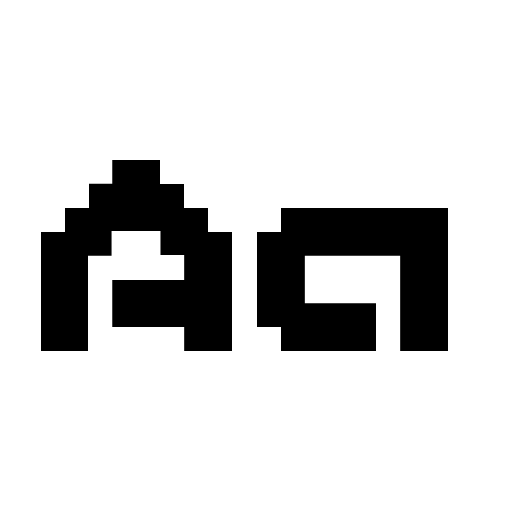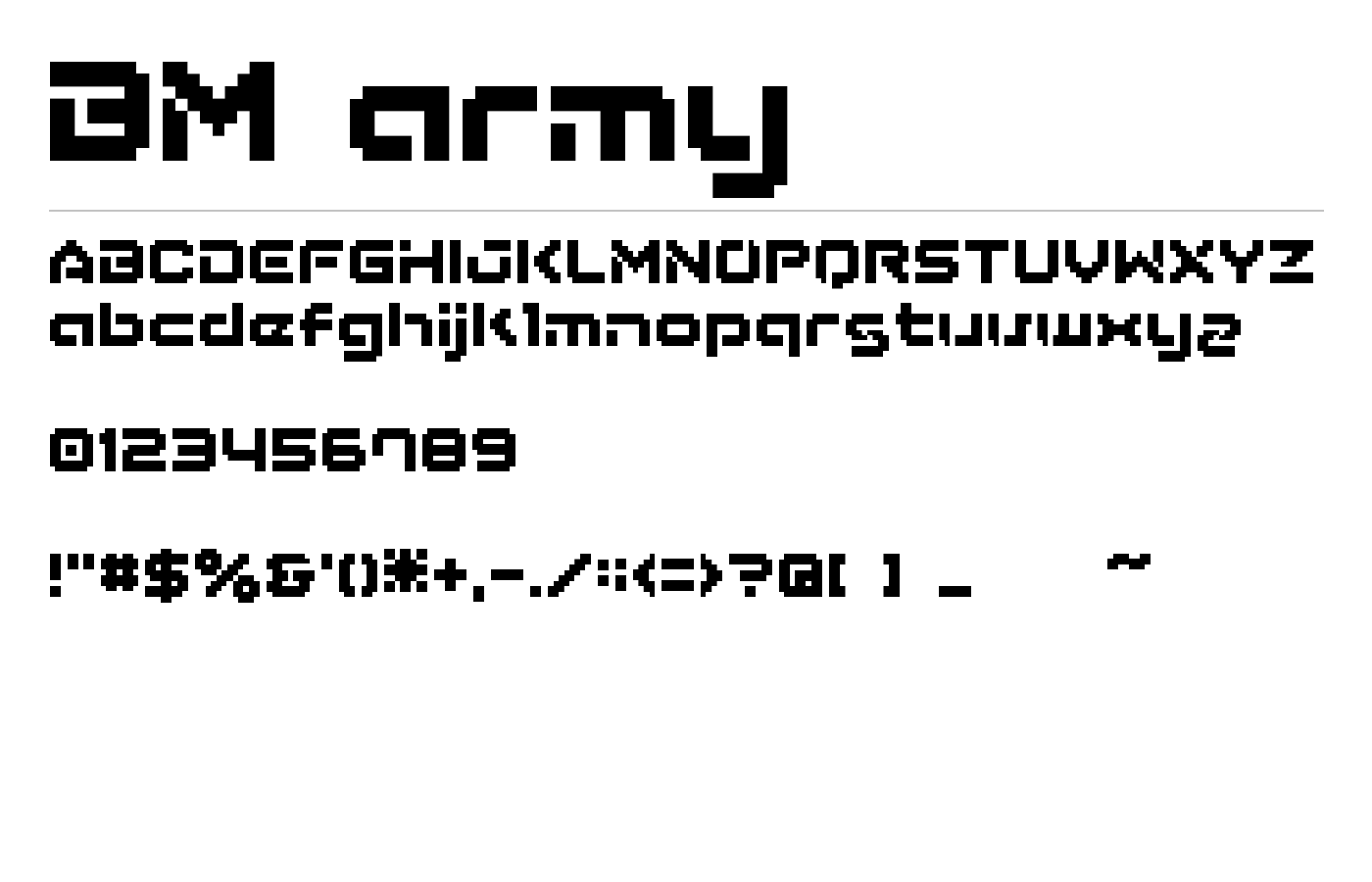
BM Army is a pixelated sans serif font with a bold, blocky style that mimics retro digital or video game typography. Its sturdy, geometric letterforms and consistent stroke weight give it a technical, utilitarian feel, making it perfect for projects that want to evoke a vintage, military, or arcade aesthetic. This font works well in headlines, logos, and designs that require a distinctive, strong digital presence.
BM army Font
About BM army Font